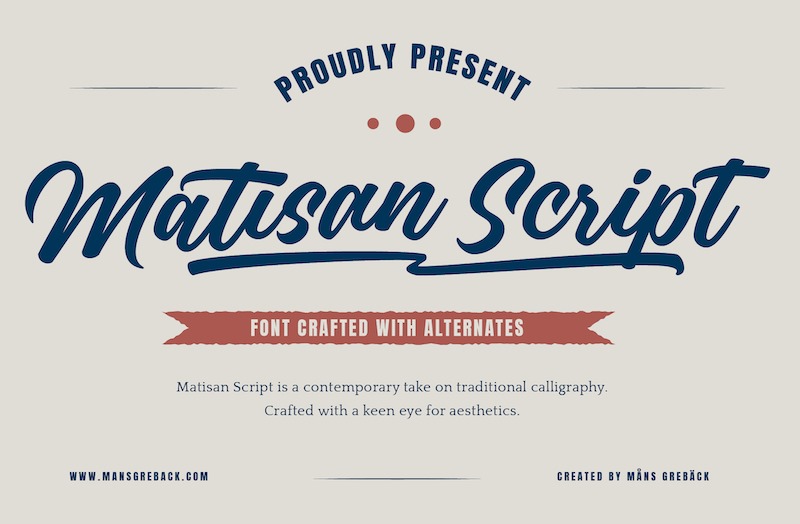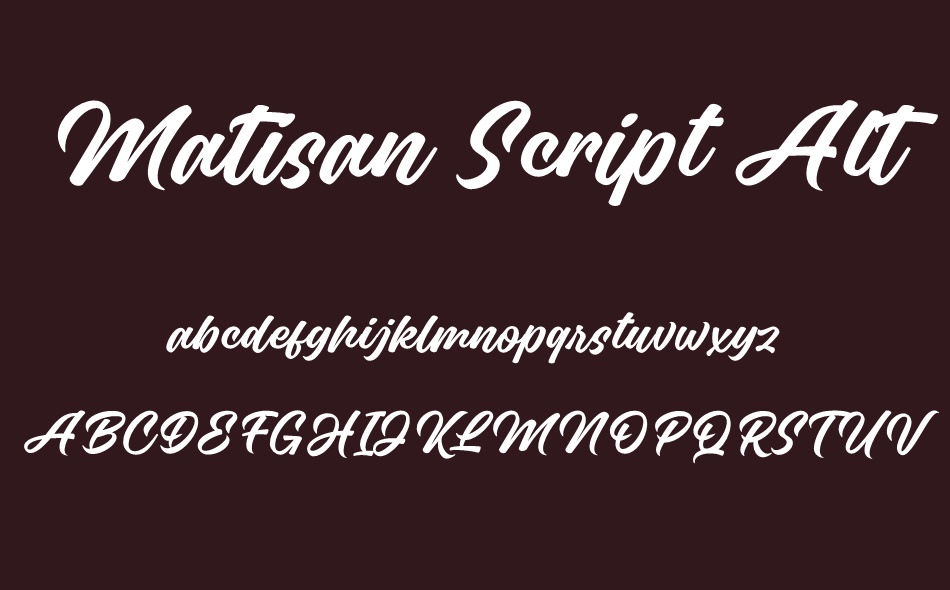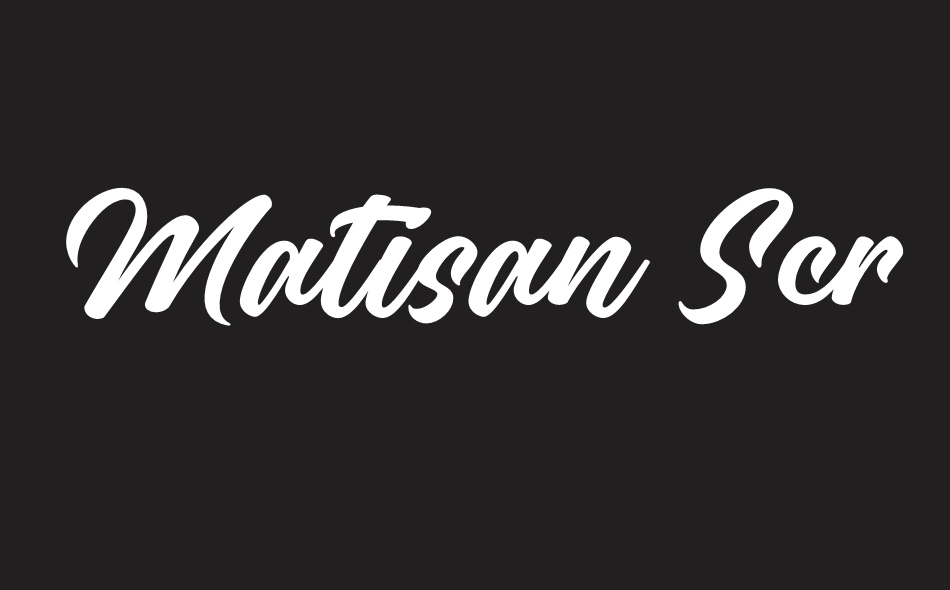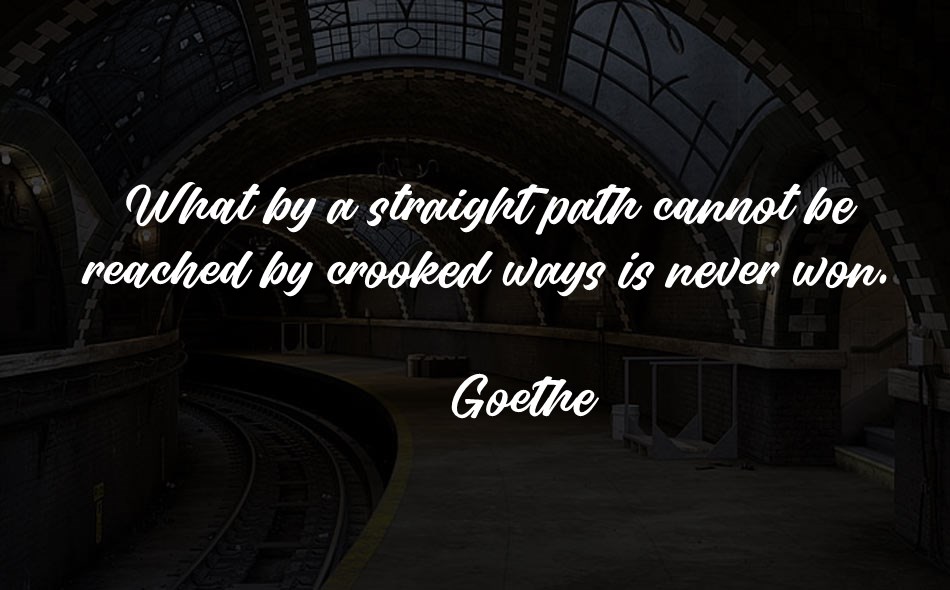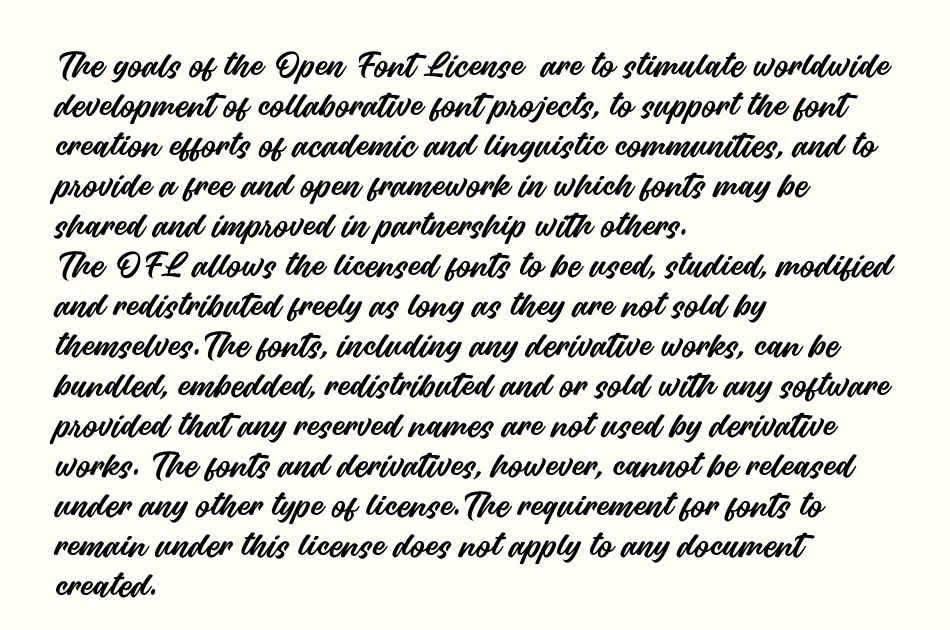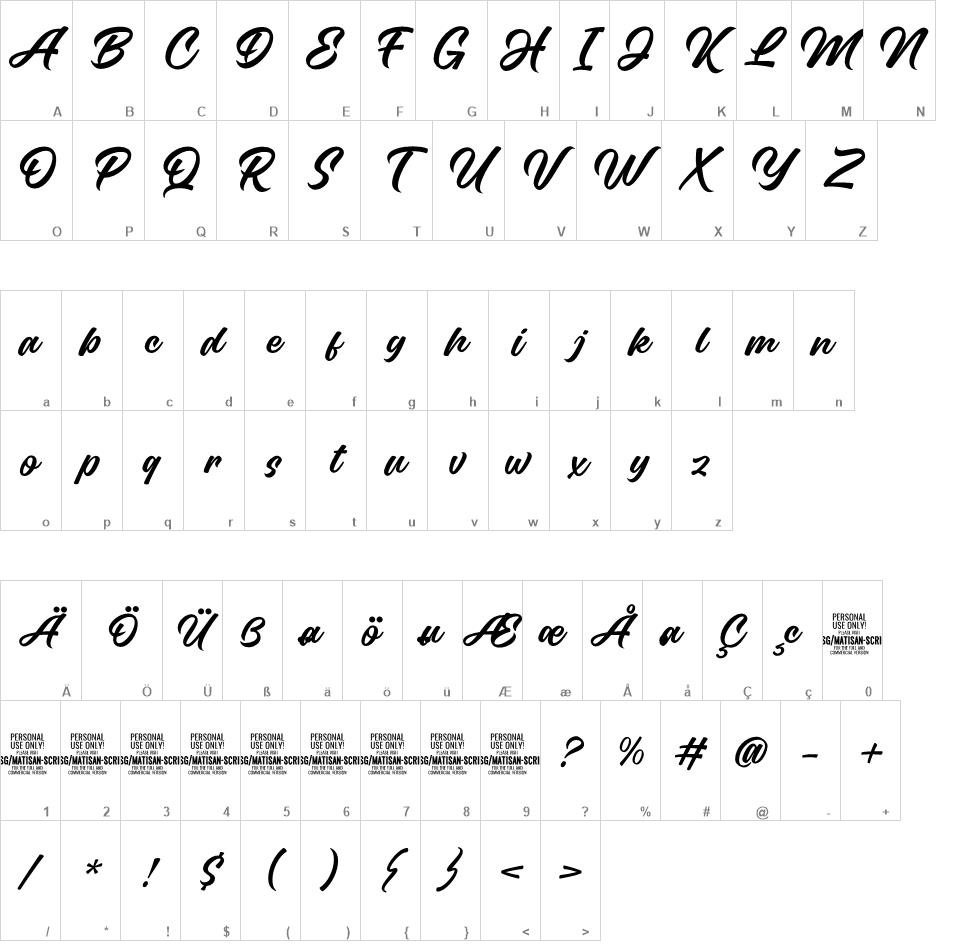
Matisan Script font
The calligraphic design of Matisan Script is characterized by its bold, yet delicate, brush strokes, imparting a sense of dynamism and motion.
Use one or multiple underscores _ anywhere in a word to make a swash.
Example: Ma_ster Wonder____woman
Matisan Script is a contemporary take on traditional calligraphy.
Crafted with a keen eye for aesthetics, Matisan Script flows effortlessly across the page, its thick and thin strokes creating a visual rhythm that's both beautiful and impactful.
The design of Matisan Script is characterized by its bold, yet delicate, brush strokes, imparting a sense of dynamism and motion. Its expressive quality lends itself well to various applications, whether it's an elegant invitation, a striking logo, or a personal project that calls for a touch of beauty and sophistication.
Use one or multiple underscores _ anywhere in a word to make a swash.
Example: Ma_ster Wonder____woman
The font is built with advanced OpenType functionality and guaranteed top-notch quality, containing stylistic and contextual alternates, ligatures and more automatic and manual features; all to give you full control and customizability. It has extensive lingual support, covering all Latin-based languages, from North Europa to South Africa, from America to South-East Asia. It contains all characters and symbols you'll ever need, including all punctuation and numbers.
Created with passion and precision, Matisan Script is more than just a font; it's a testament to the beauty of modern calligraphy, designed to bring your creative visions to life.